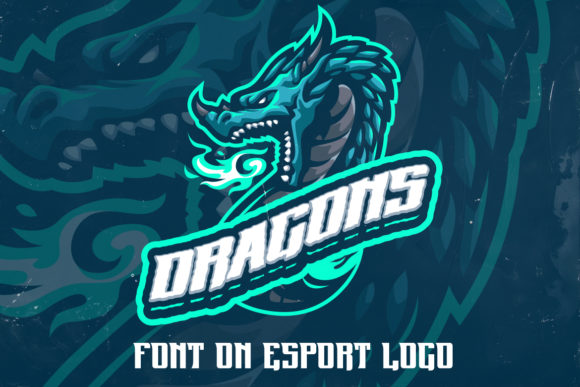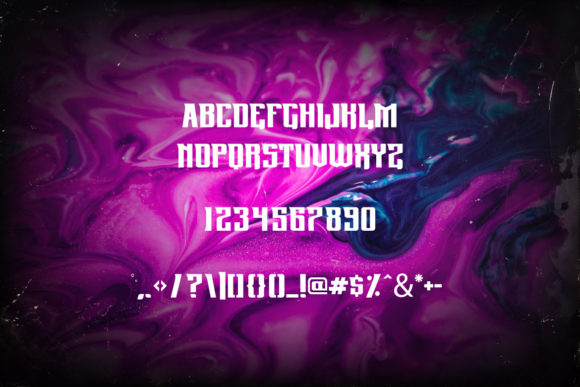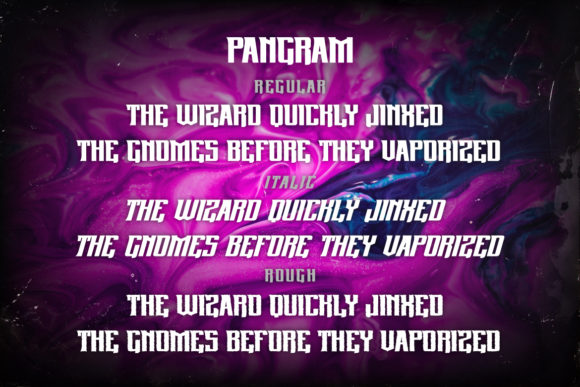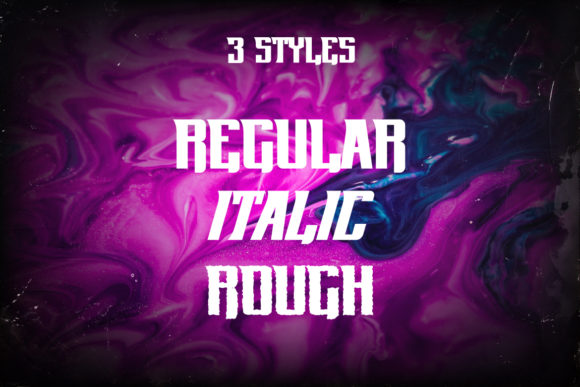
Introduction to Nostrum Font
Have you ever stared at a blank canvas, waiting for that spark of creativity to strike? For designers, those moments are precious – the ones where inspiration hits and your project takes off in a direction you never thought possible. For us, that spark came in the form of the Nostrum Font, a game-changing display font that’s taken our designs to new heights.
With its clean, textured aesthetic, the Nostrum Font is more than just a design resource – it’s a statement piece. Its imposing presence demands attention, making it the perfect choice for any high-quality project that needs to stand out. And the best part? It’s available for a free download, giving you the creative freedom to experiment and push the boundaries of your imagination.
Whether you’re working on a personal project or a client’s design, the Nostrum Font is a valuable addition to your toolkit. Its transparent background and versatility make it easy to incorporate into any design, from logos to brochures. So why settle for ordinary when you can have extraordinary with the Nostrum Font?
Key Features of Nostrum Font
- High-quality, professional font suitable for creative projects
- Features a transparent background, allowing for seamless integration into designs
- Includes multiple weights and styles, offering flexibility for different design needs
- Designed with a clean and modern aesthetic, making it perfect for a wide range of design projects
Honest Review: Nostrum Font
As a designer, I’m always on the lookout for high-quality design resources that can elevate my creative projects. Recently, I stumbled upon the Nostrum Font, and I’m excited to share my honest review with you.
- High-quality typography: Nostrum Font offers a clean and modern aesthetic that’s perfect for a variety of design projects.
- Transparent background: The font’s transparent background allows for seamless integration with other design elements.
- Limited language support: Unfortunately, Nostrum Font only supports a limited number of languages, which may be a drawback for designers working on international projects.
- No web font option: I wish the font was available as a web font, making it easier to use in web design projects.
Overall, I’m impressed with the Nostrum Font, and I think it’s a great addition to any designer’s toolkit. While it has some limitations, its high-quality typography and free download make it a worthwhile resource for creative projects.
The Nostrum Font is ideal for various creative projects, such as:
– Social media graphics and advertisements
– Presentations and business reports
– Logos and branding materials
– Brochures and flyers
Does the Nostrum Font have a transparent background?
Yes, the Nostrum Font is a transparent font, which means it has a transparent background. This allows you to easily place it over images or other design elements without any visual distractions. This feature is particularly useful when creating designs with complex backgrounds or when you want to add a touch of elegance to your creative project.